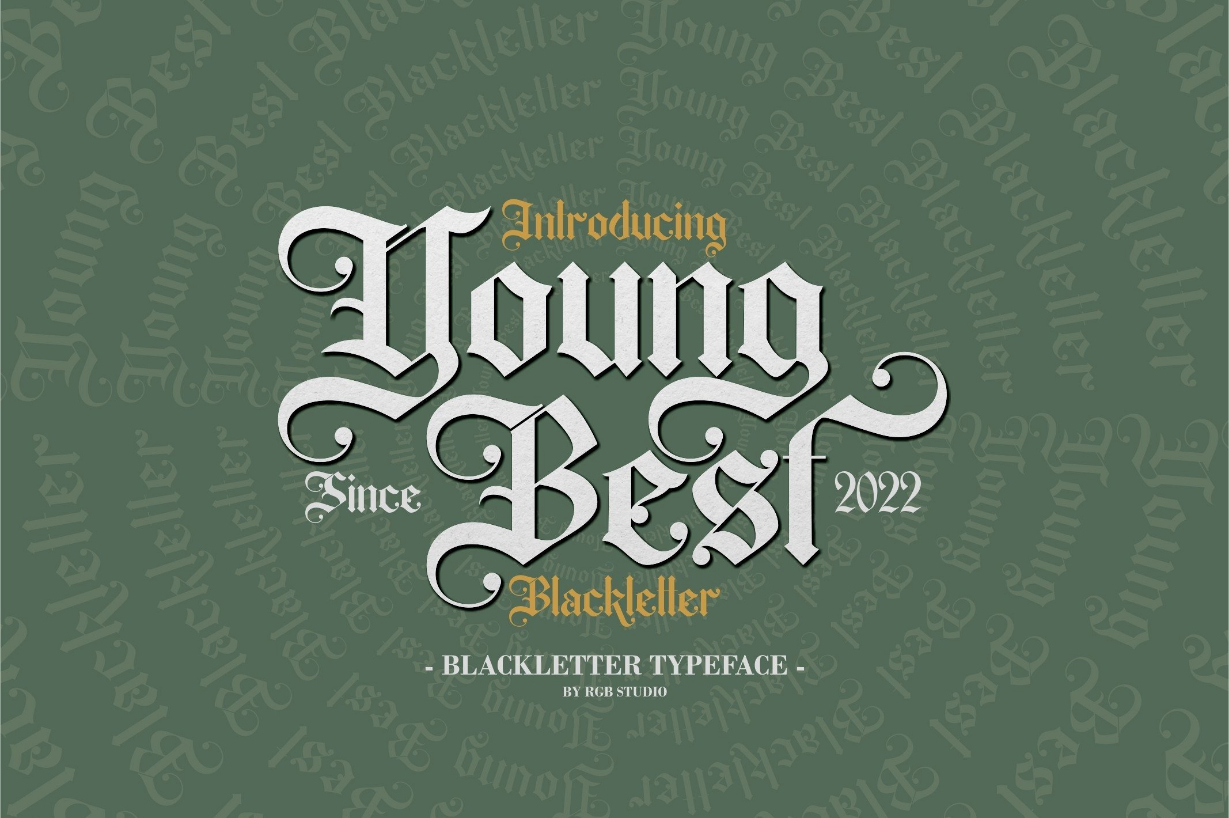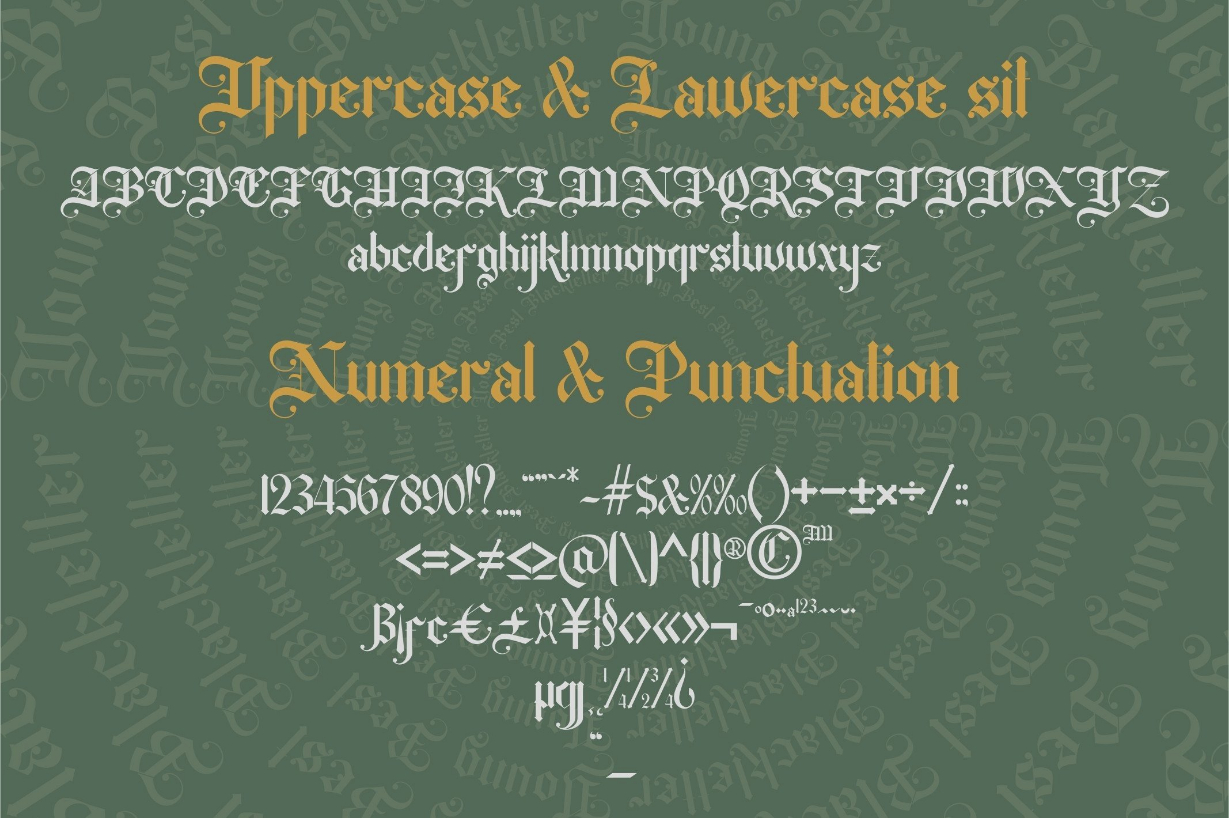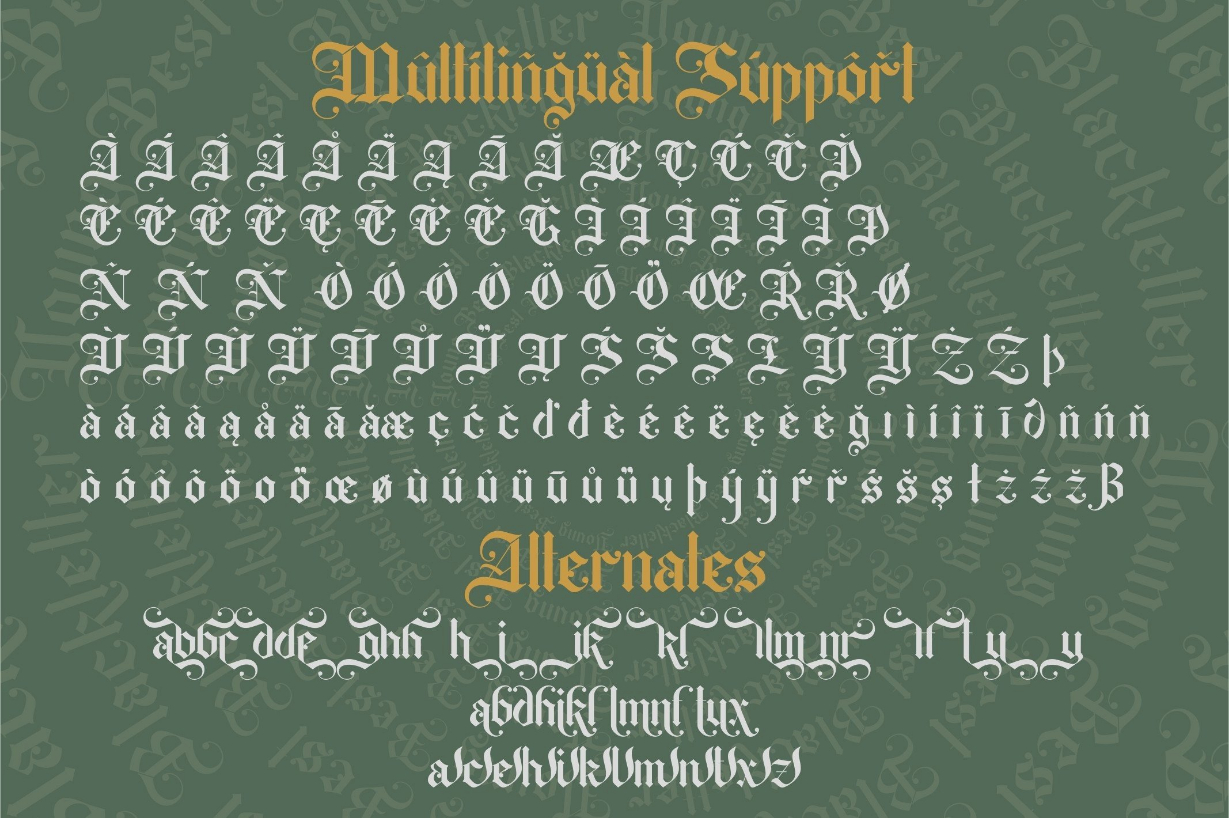
About Young Best Font
Young Best is a splendid blackletter font that will impress with its stylish features. Use it for product packaging, branding, or other projects that need bold and daring typography!